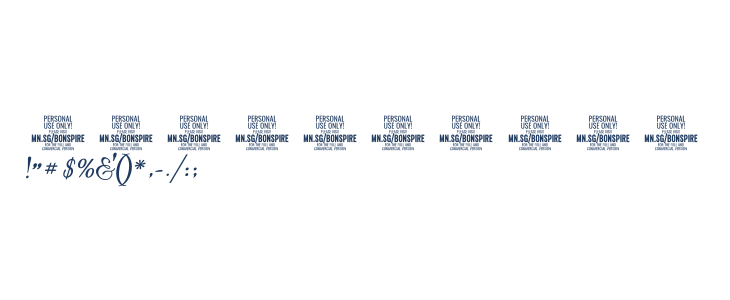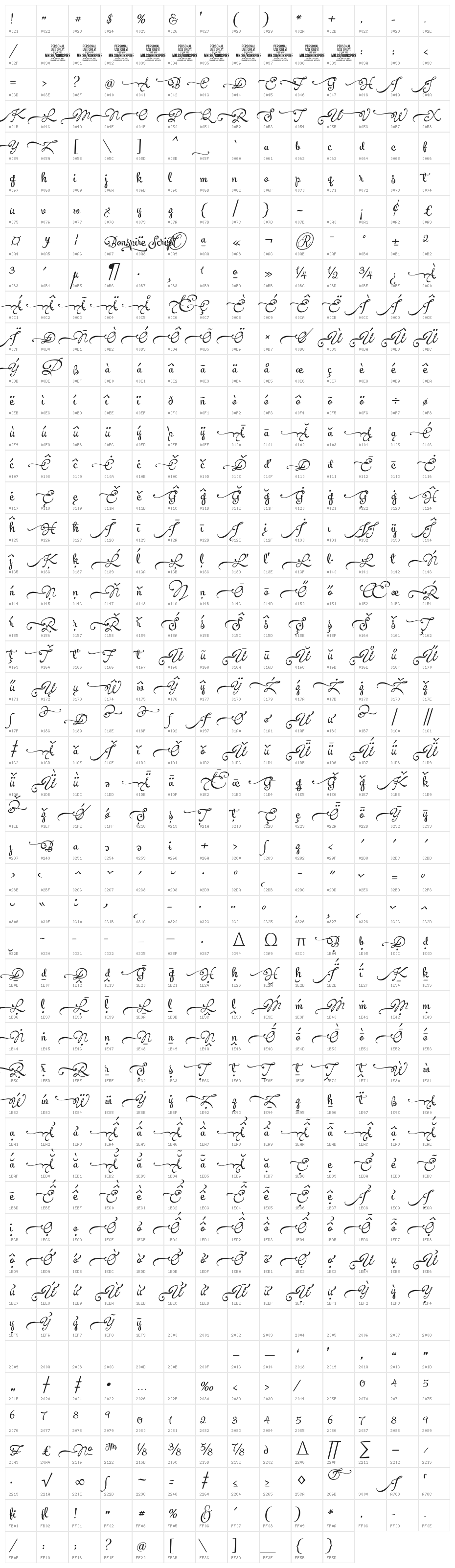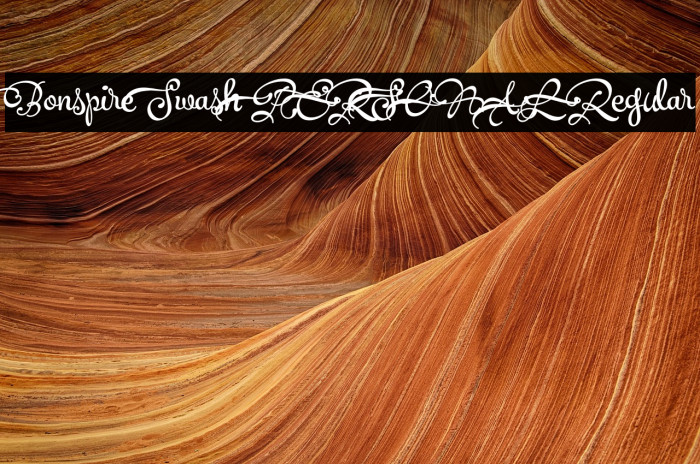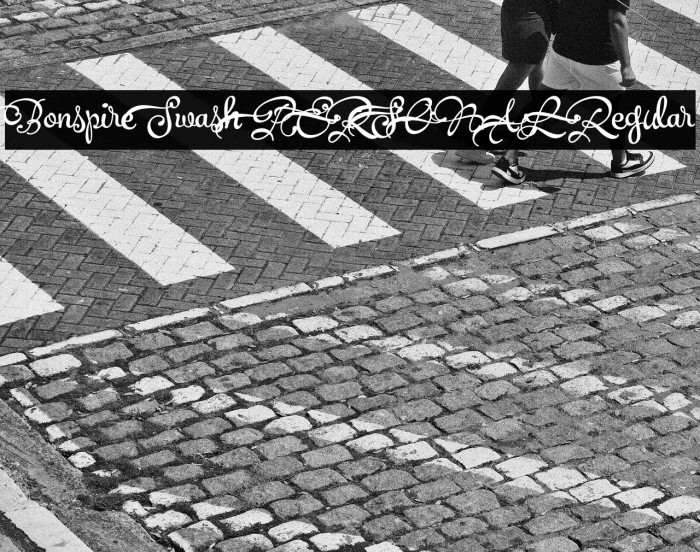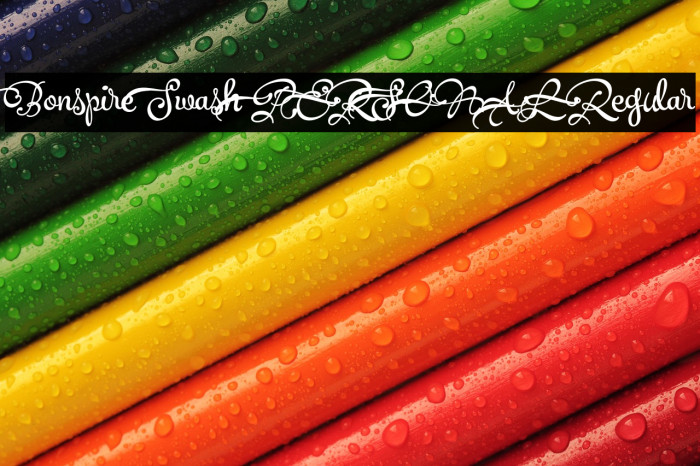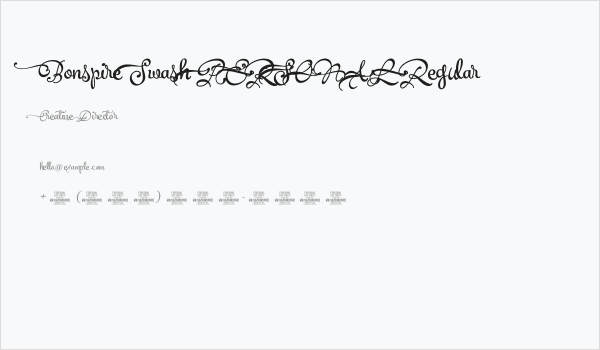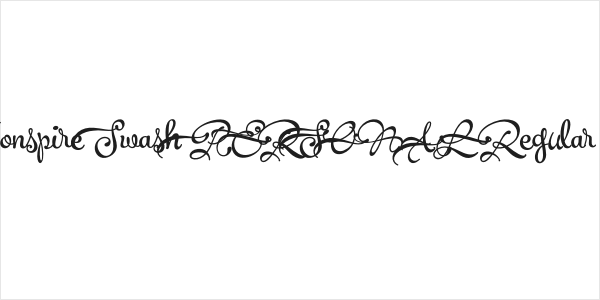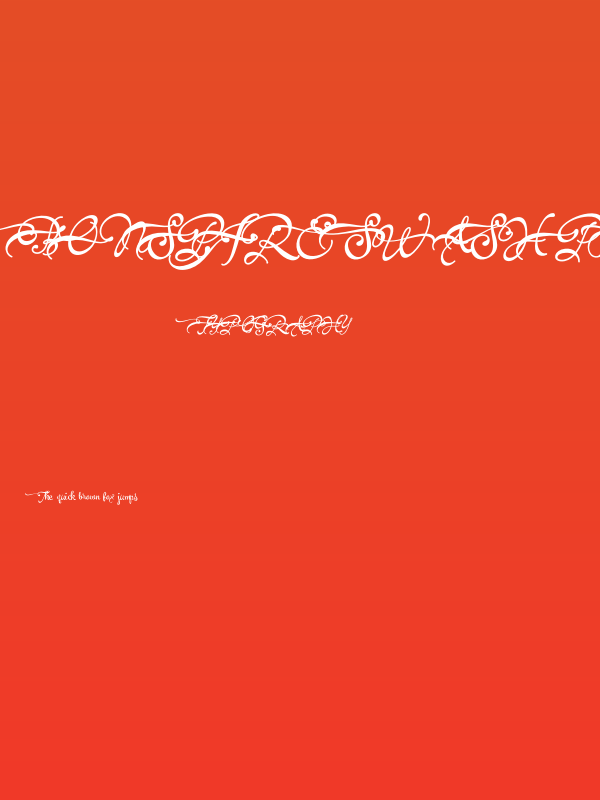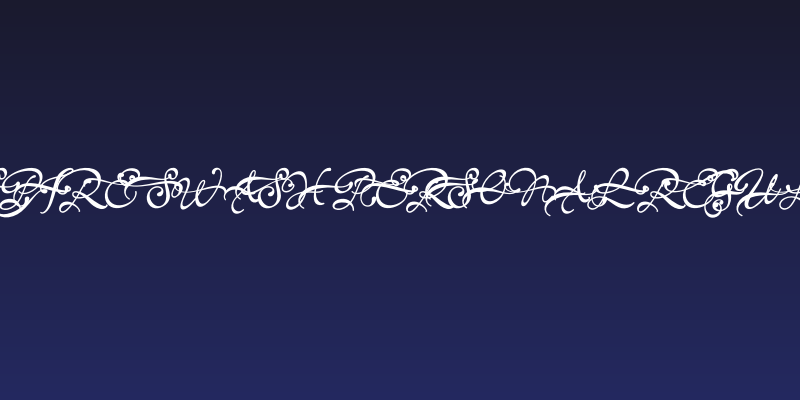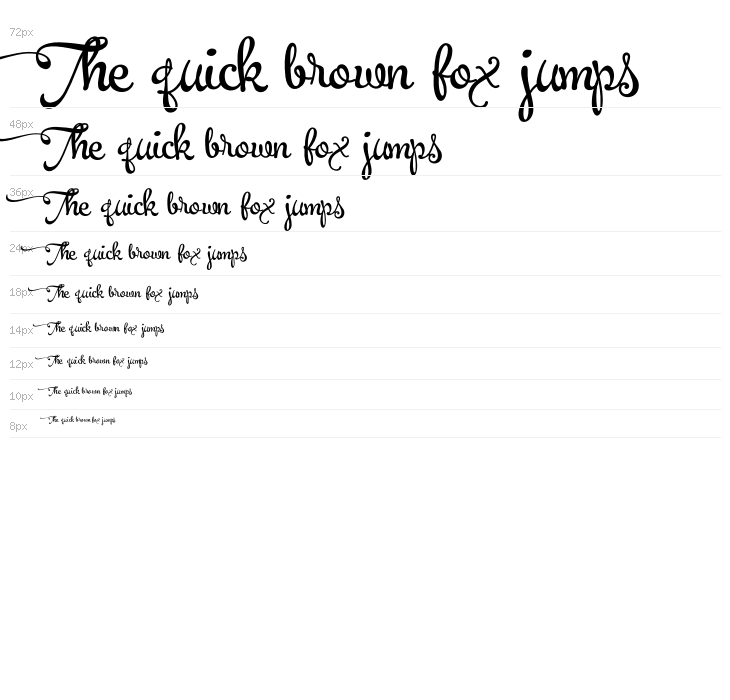
Bonspire Swash PERSONAL Regular Font
Bonspire Swash PERSONAL Regular Description
This font features an elegant and intricate script style, characterized by its flowing and interconnected letterforms. The uppercase letters are adorned with elaborate swashes and flourishes, giving them a decorative and ornate appearance. The lowercase letters maintain a more consistent and smooth flow, with some characters featuring subtle loops and curls. The font includes a variety of special characters, each designed with the same attention to detail and artistic flair. Its overall aesthetic is both sophisticated and whimsical, making it suitable for creative and formal applications.